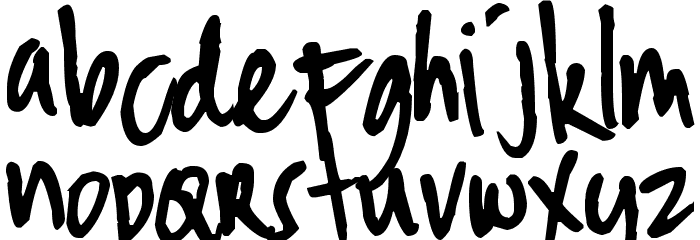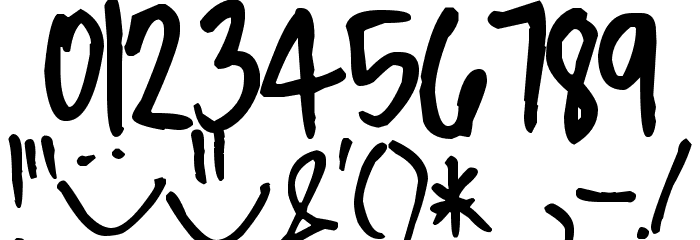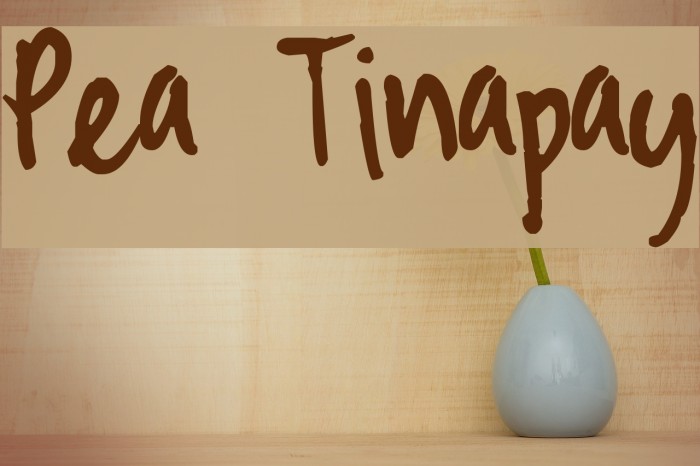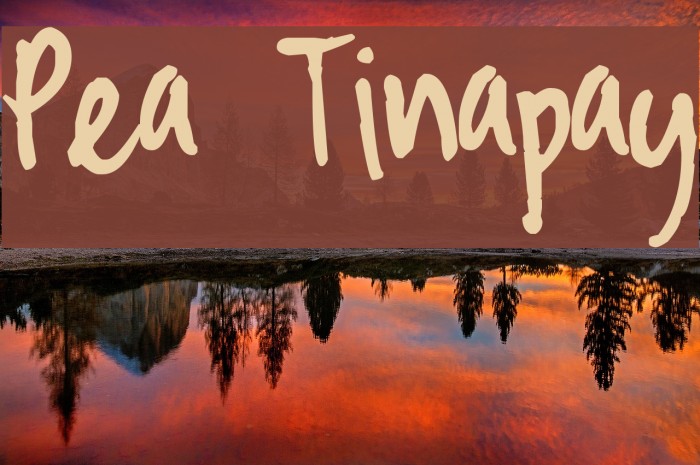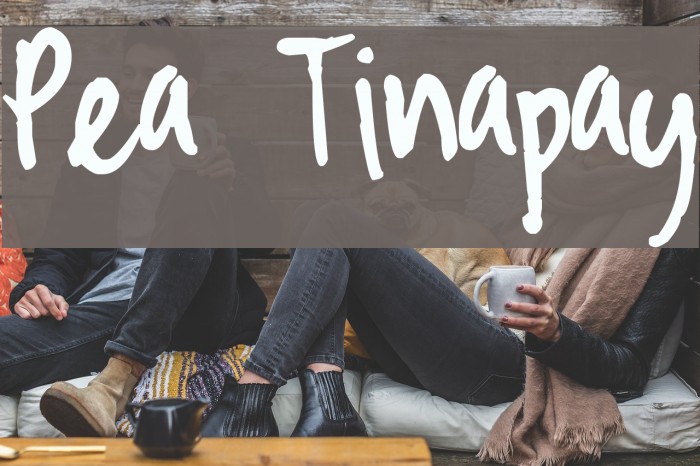
Pea Tinapay Font
This font exudes a playful and informal vibe, characterized by its hand-drawn appearance. The letters are uneven and slightly slanted, giving it a casual, handwritten feel. The strokes are bold and consistent, with a slight variation in thickness that adds to its dynamic look. The characters are well-spaced, ensuring readability while maintaining a whimsical charm. The font includes a full set of uppercase and lowercase letters, numbers, and a variety of special characters, making it versatile for different uses. Its distinctive style makes it suitable for projects that aim to convey a personal touch or a creative, artistic flair.
A playful, hand-drawn font with bold, uneven strokes and a casual style.
- Font: Pea Tinapay
- Proposed Projects: Ideal for greeting cards, children's books, creative posters, and personal branding.
- Overall Style: Casual, Artistic
- Use Case: Headlines, Informal Text, Creative Projects